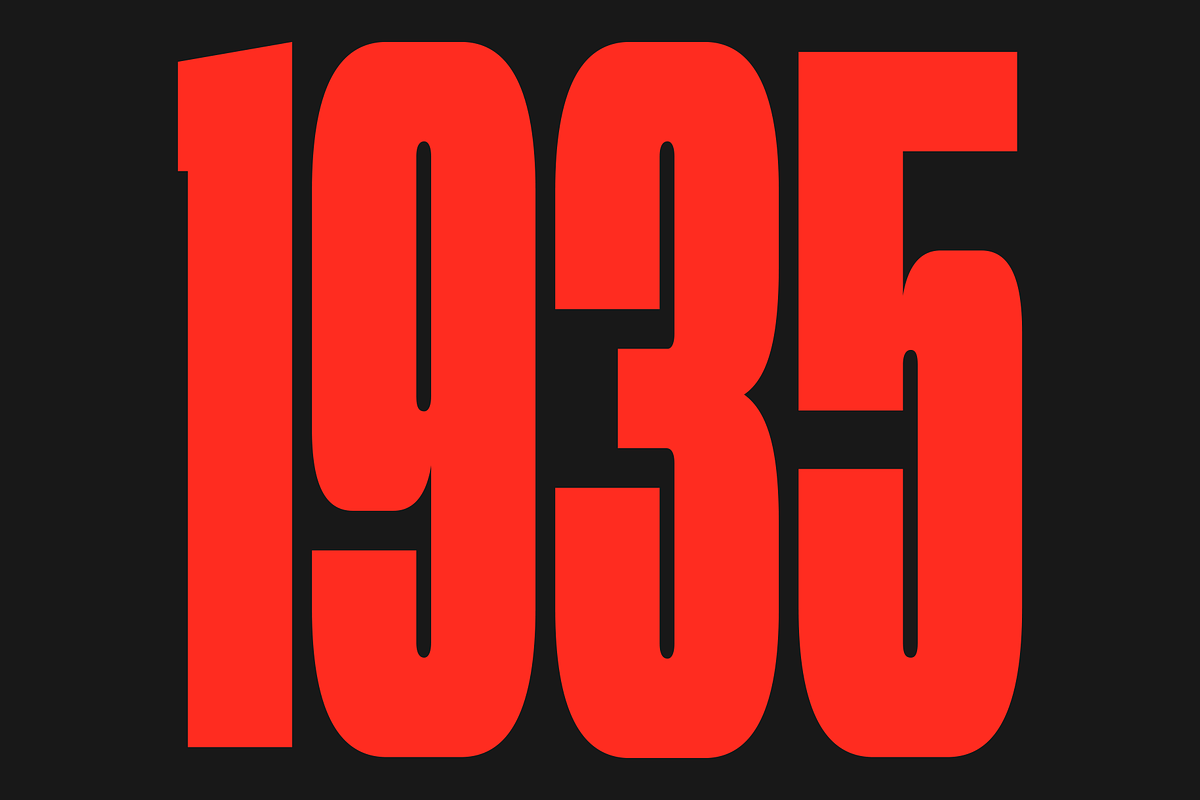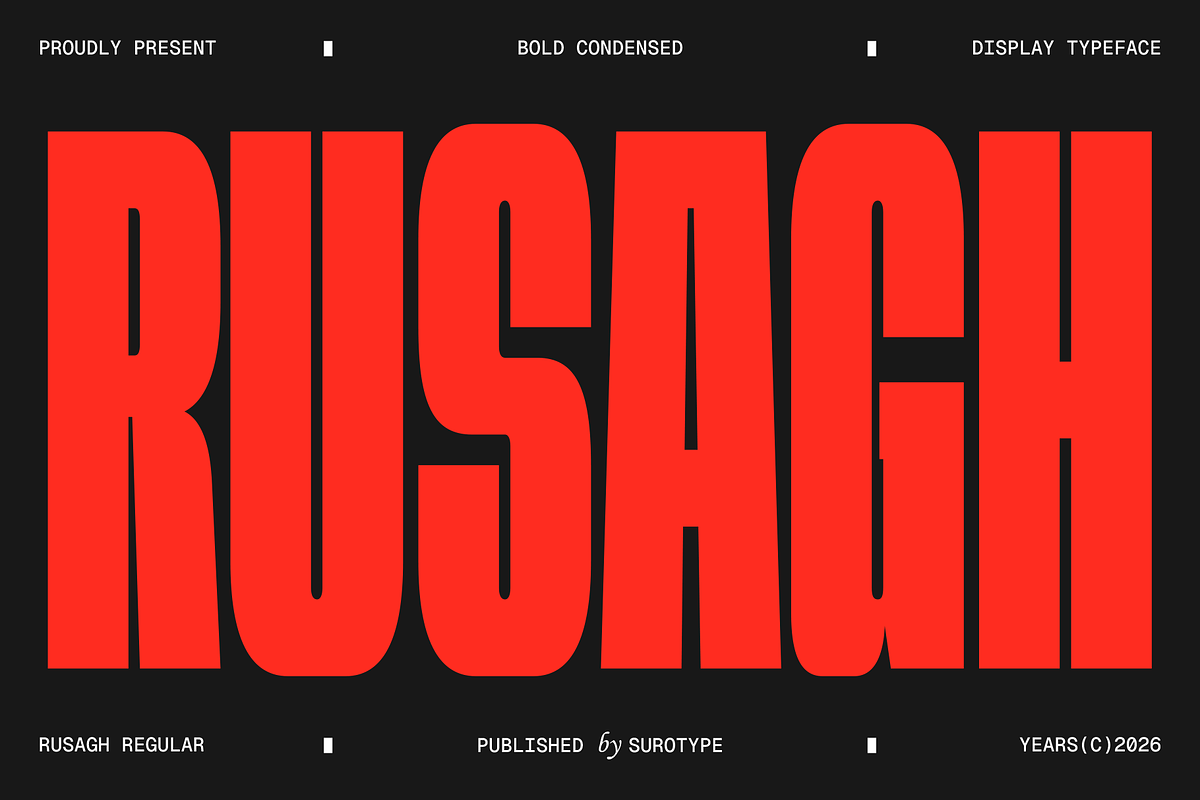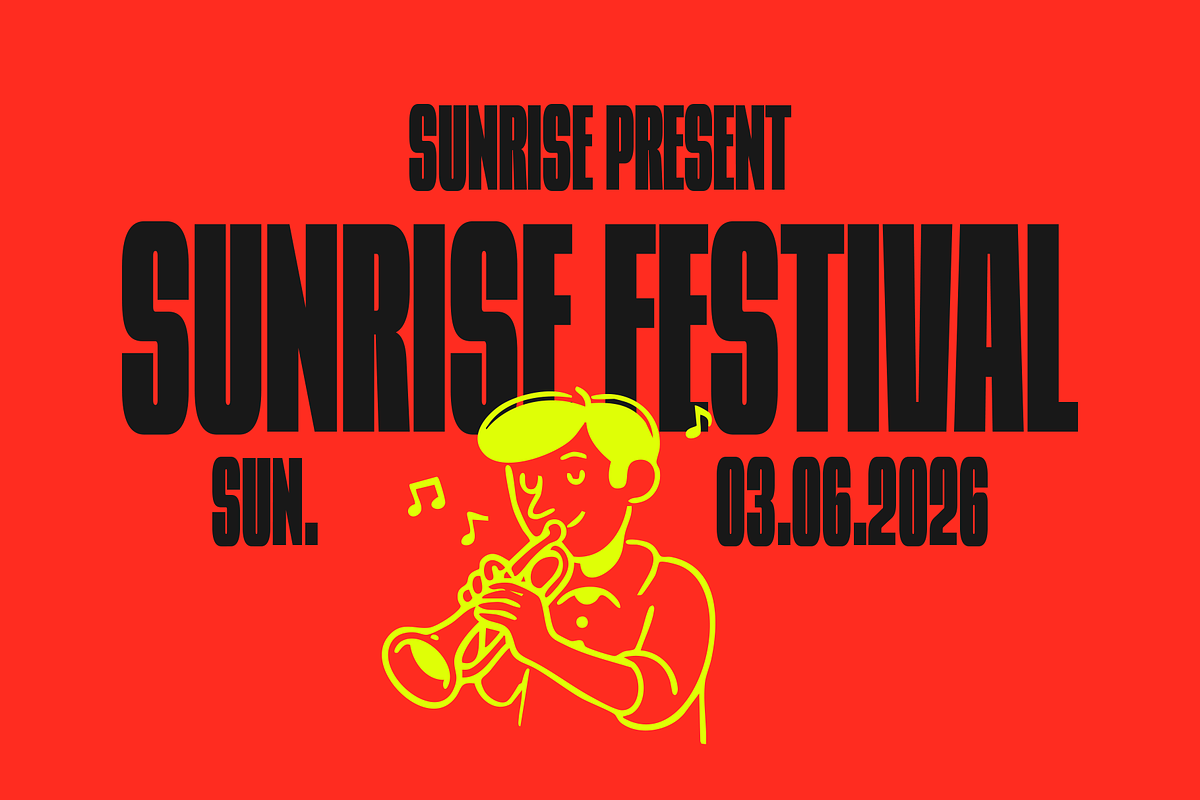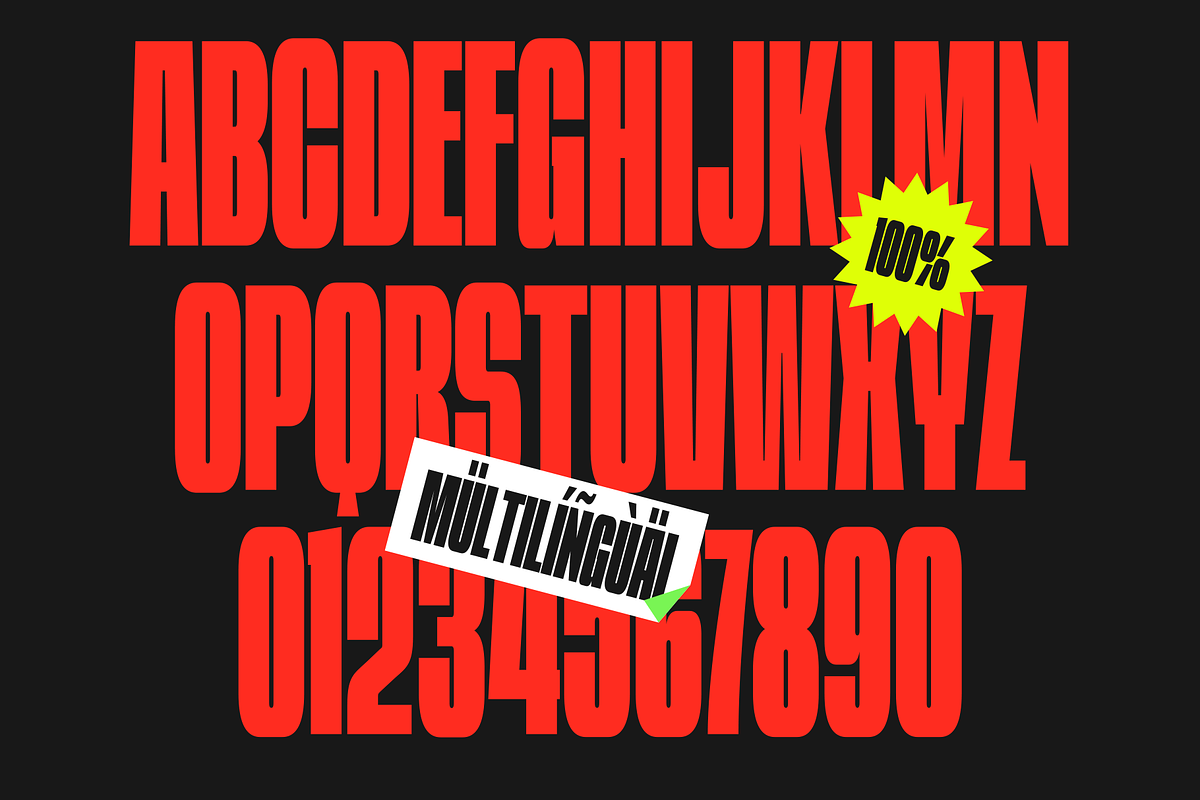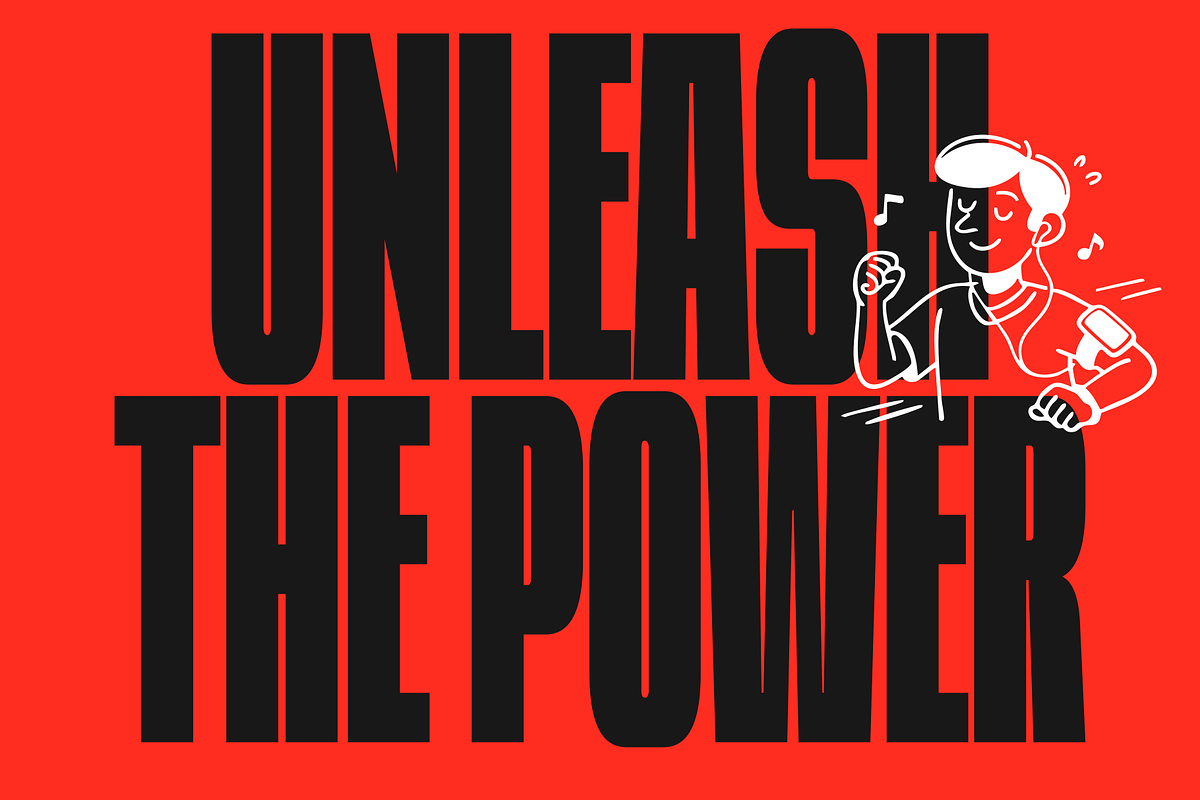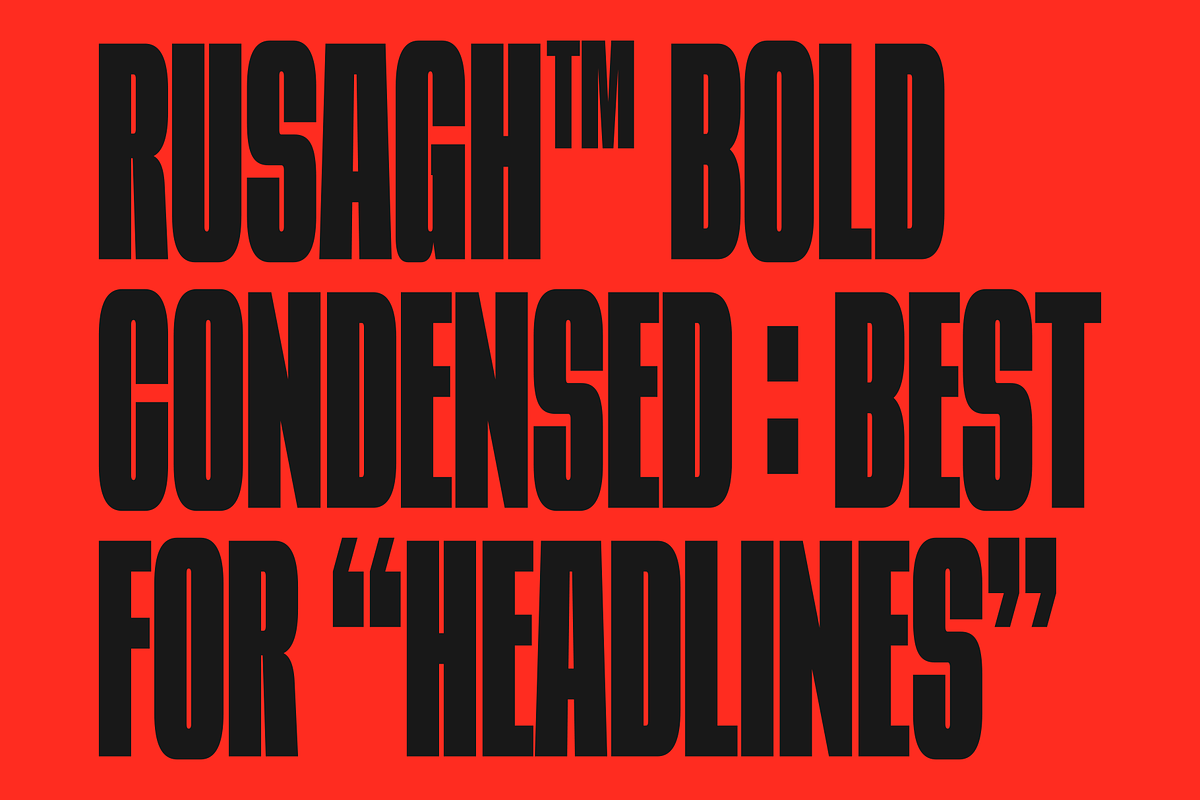
Rusagh
Rusagh is a powerhouse display font designed with a bold, condensed structure that commands attention. Its massive visual presence and authoritative stance make it the ultimate choice for designs that need to deliver an instant, high-impact message.
Engineered for modern design requirements, Rusagh is perfect for high-octane projects—from movie posters and sports jerseys to automotive branding and bold editorial headlines.
Features & Character:
- Full Uppercase
- Strong & Solid Character
- Industrial & Sporty Aesthetic
- High Versatility
- Punctuation & Multi-language Support